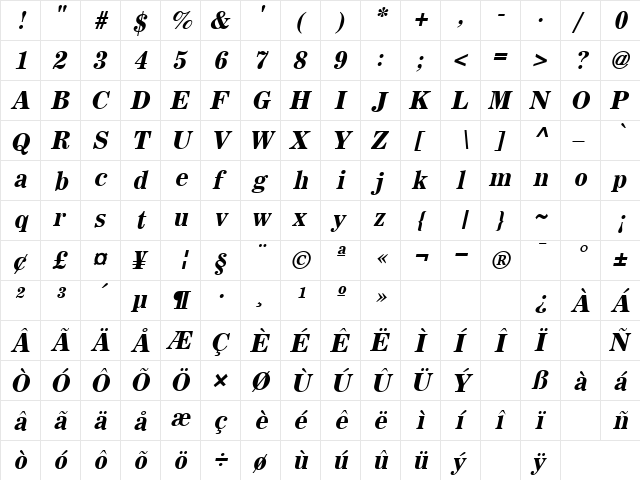
Sachem Bold-Oblique
Design Context for Sachem Typeface
Sachem is a composed and adaptable typeface that performs quietly and consistently across a wide range of design contexts. The dynamic lean of this cut emphasises speed and emphasis in any layout. Its bold stroke weight gives it real presence on the page.
Pro Tip: Try Sachem for annotation and caption copy alongside an upright companion — the contrast in angle creates a dynamic but ordered typographic system.